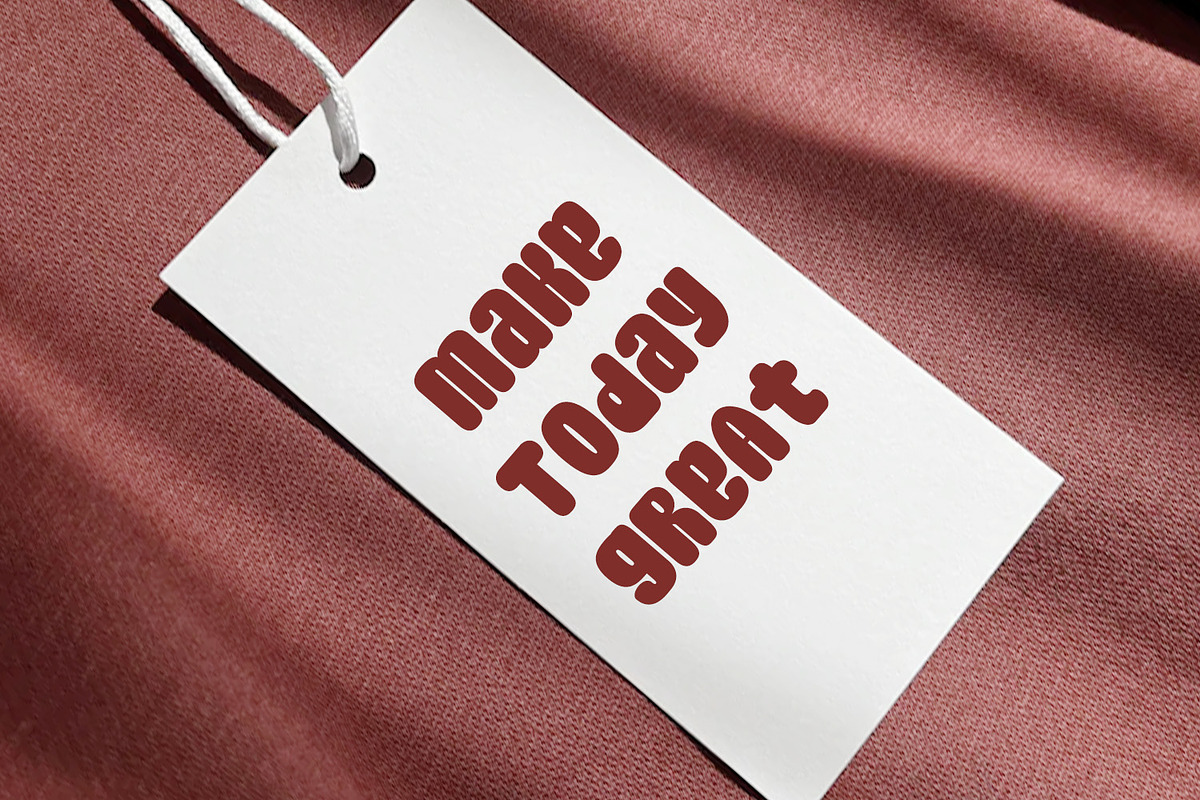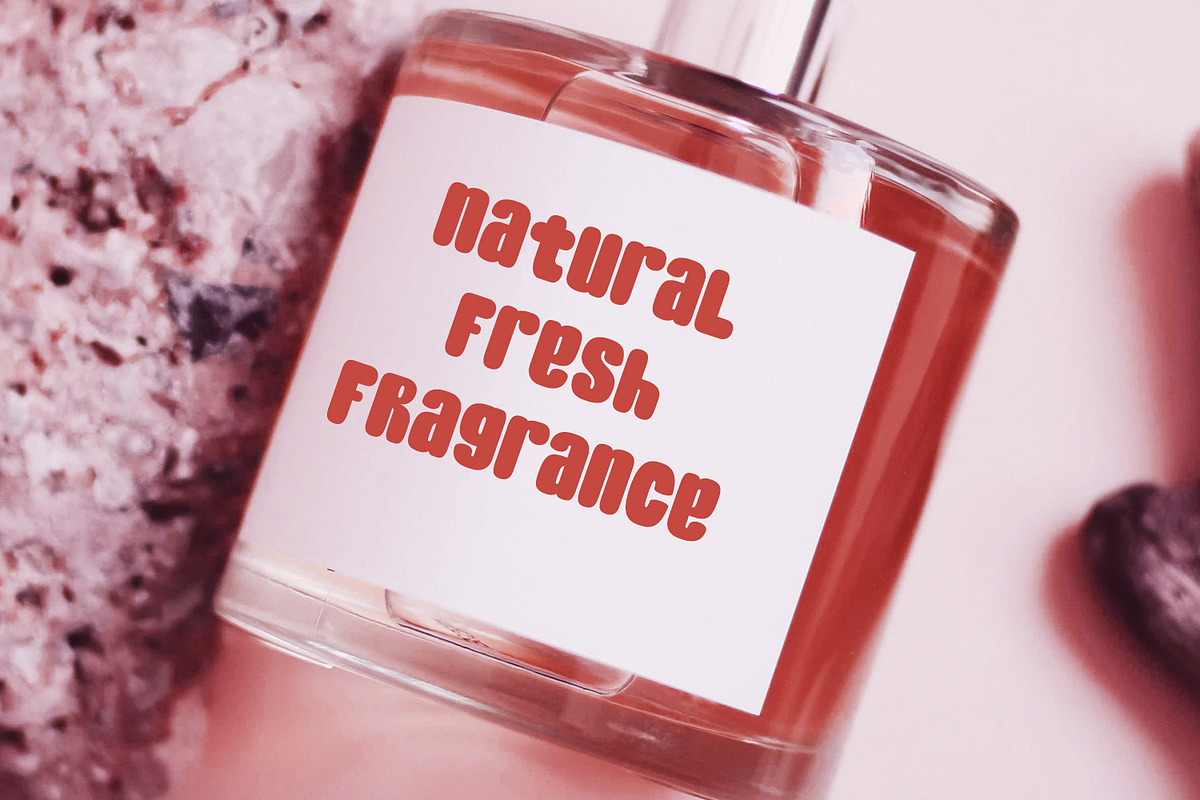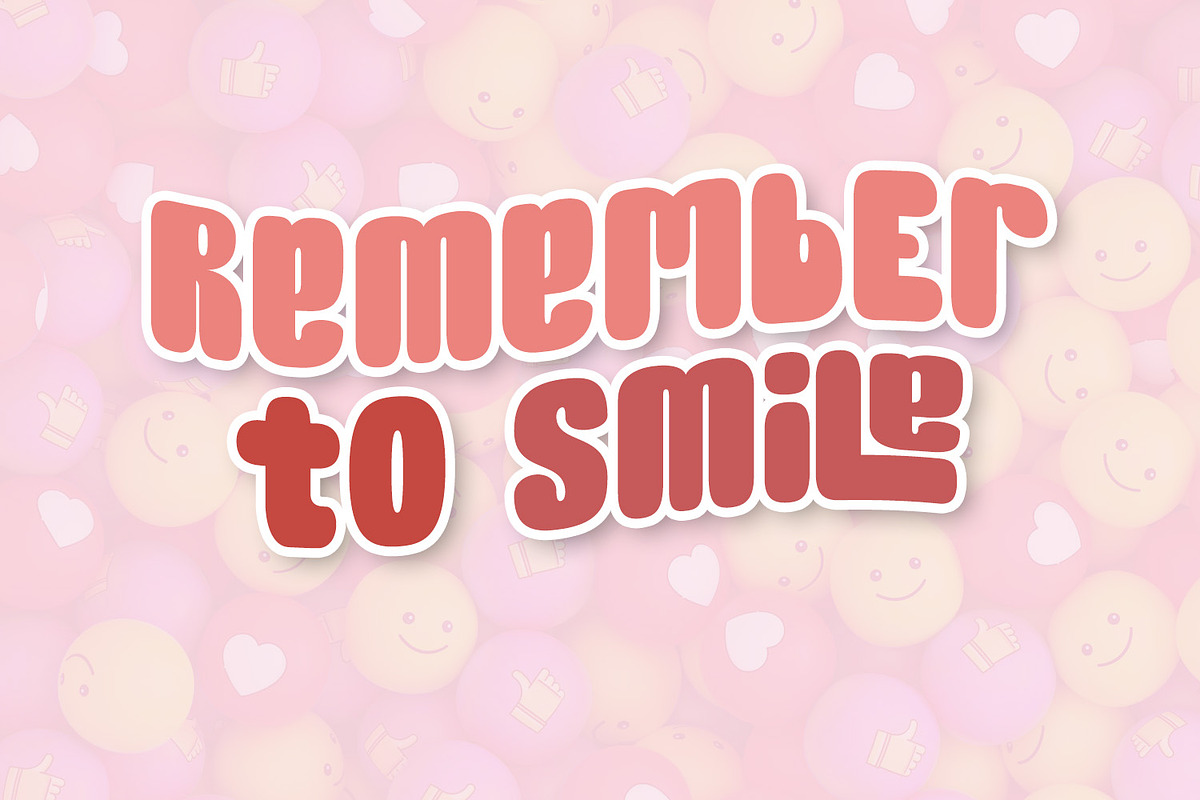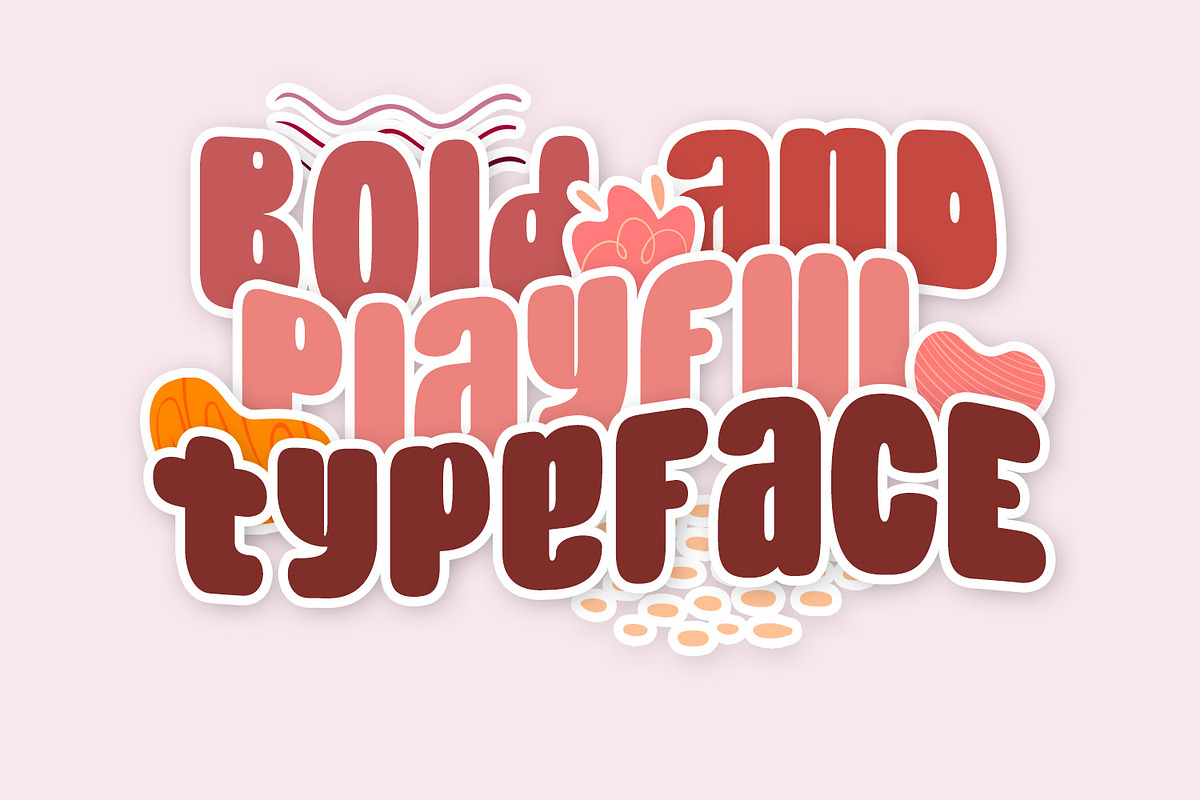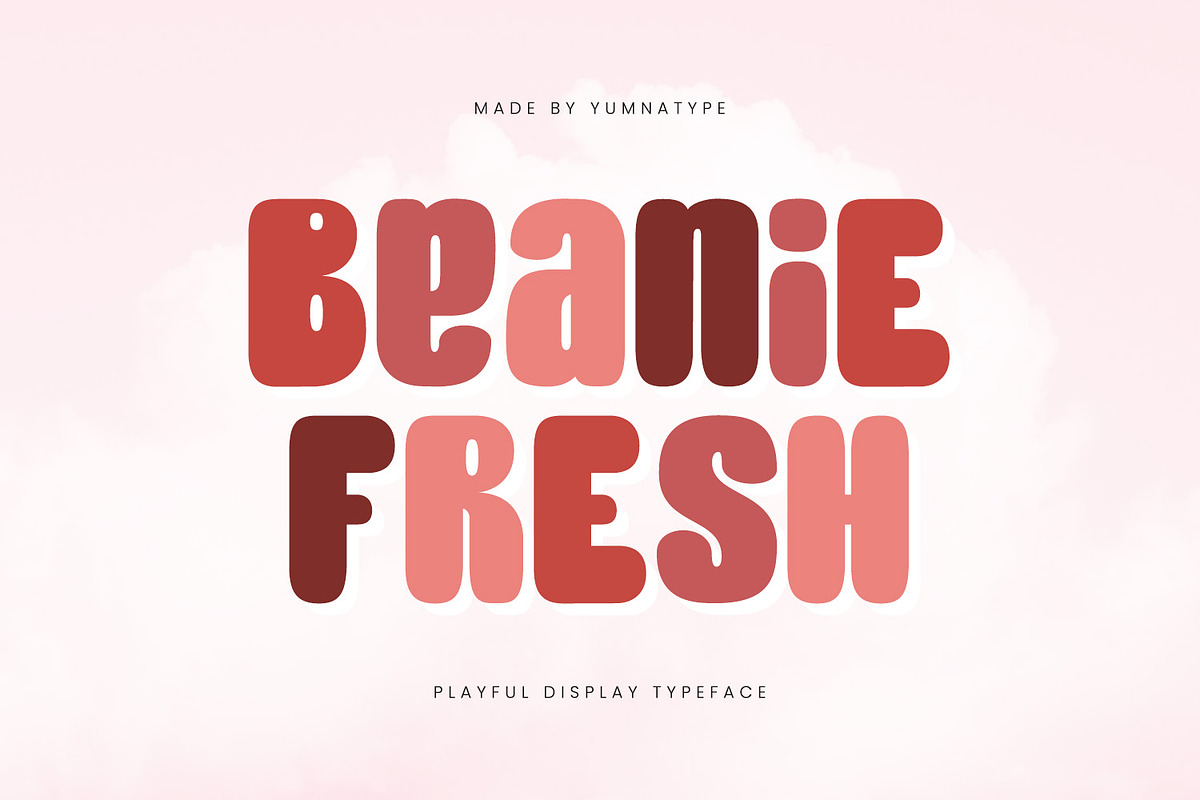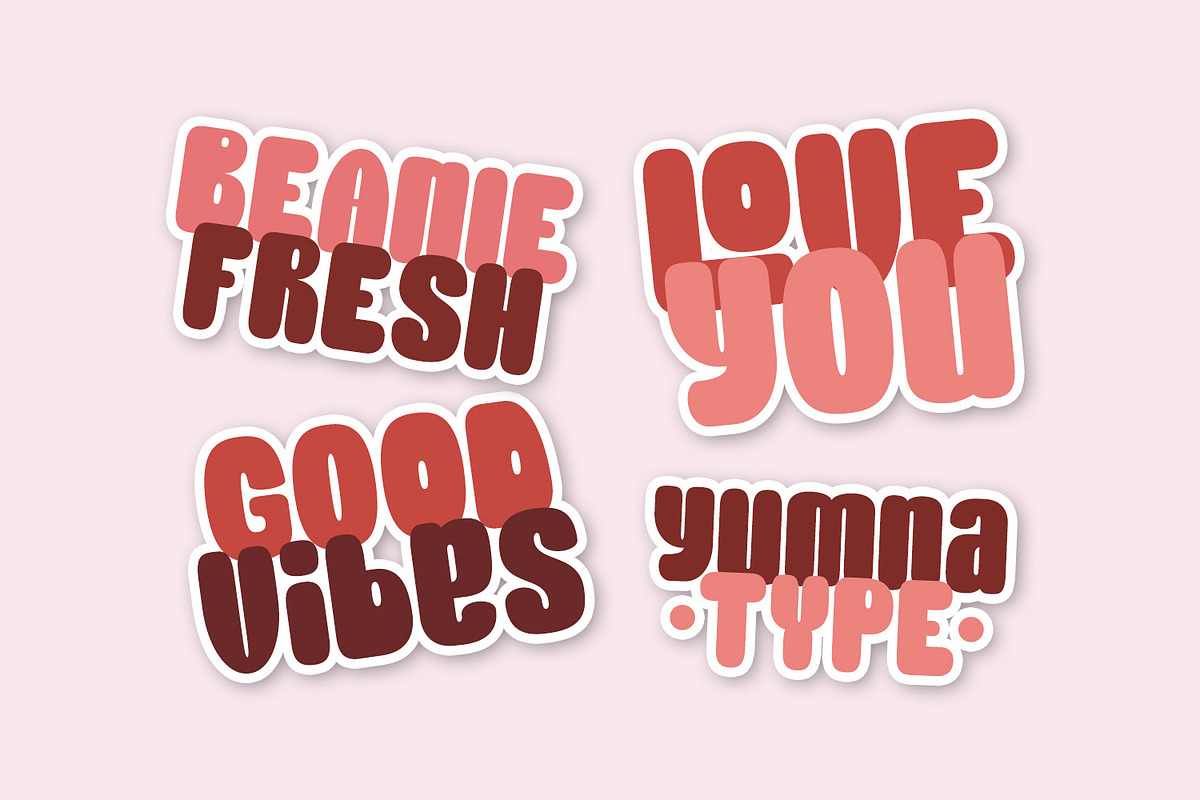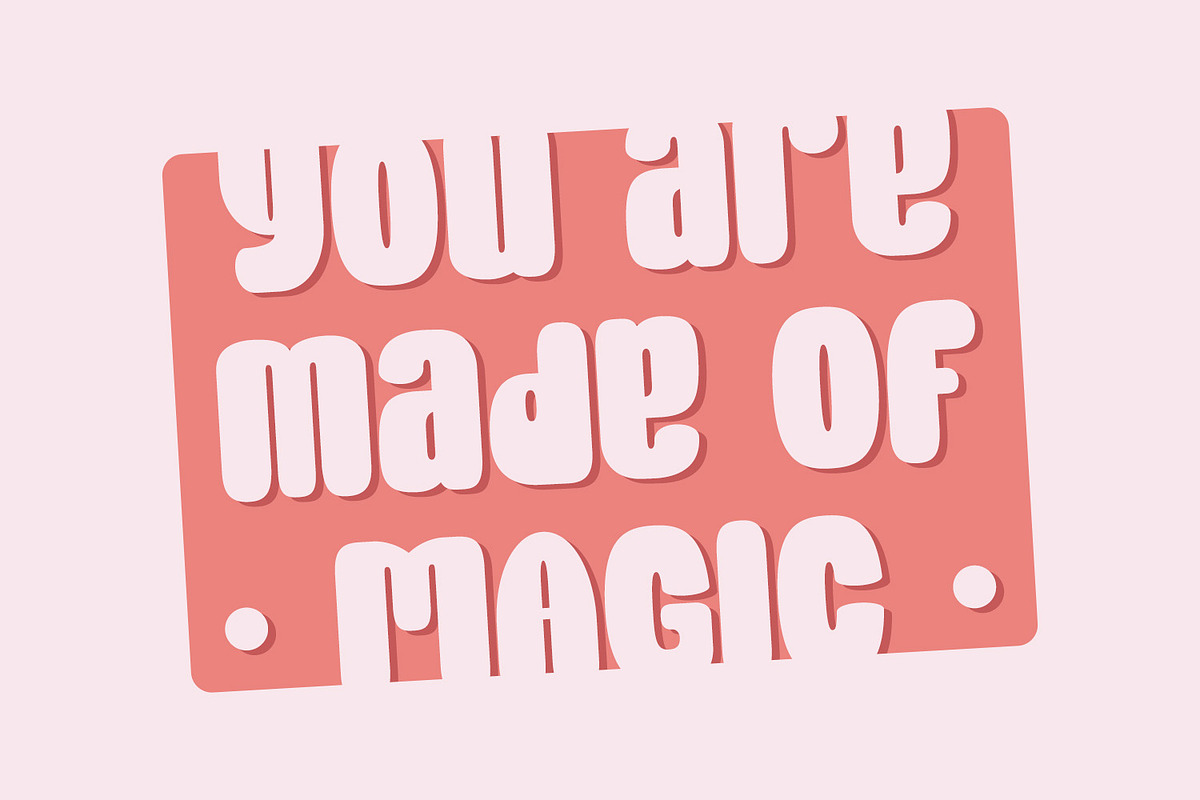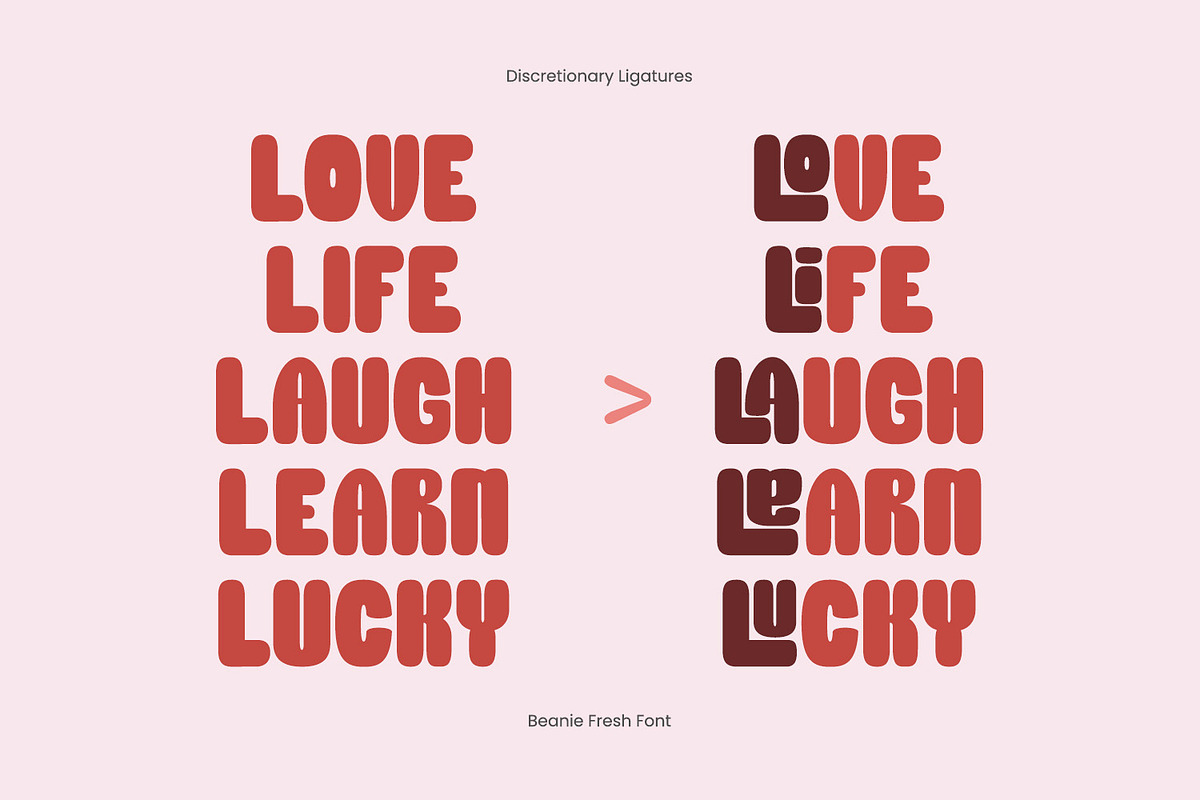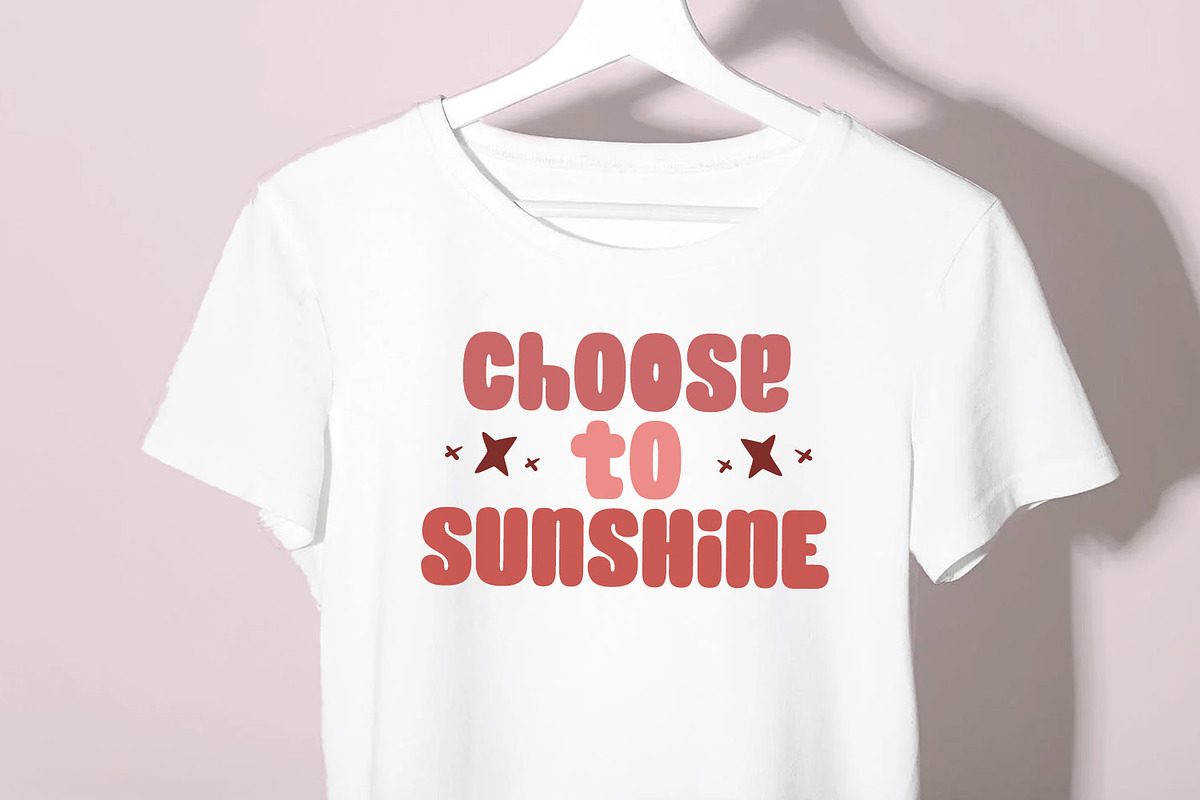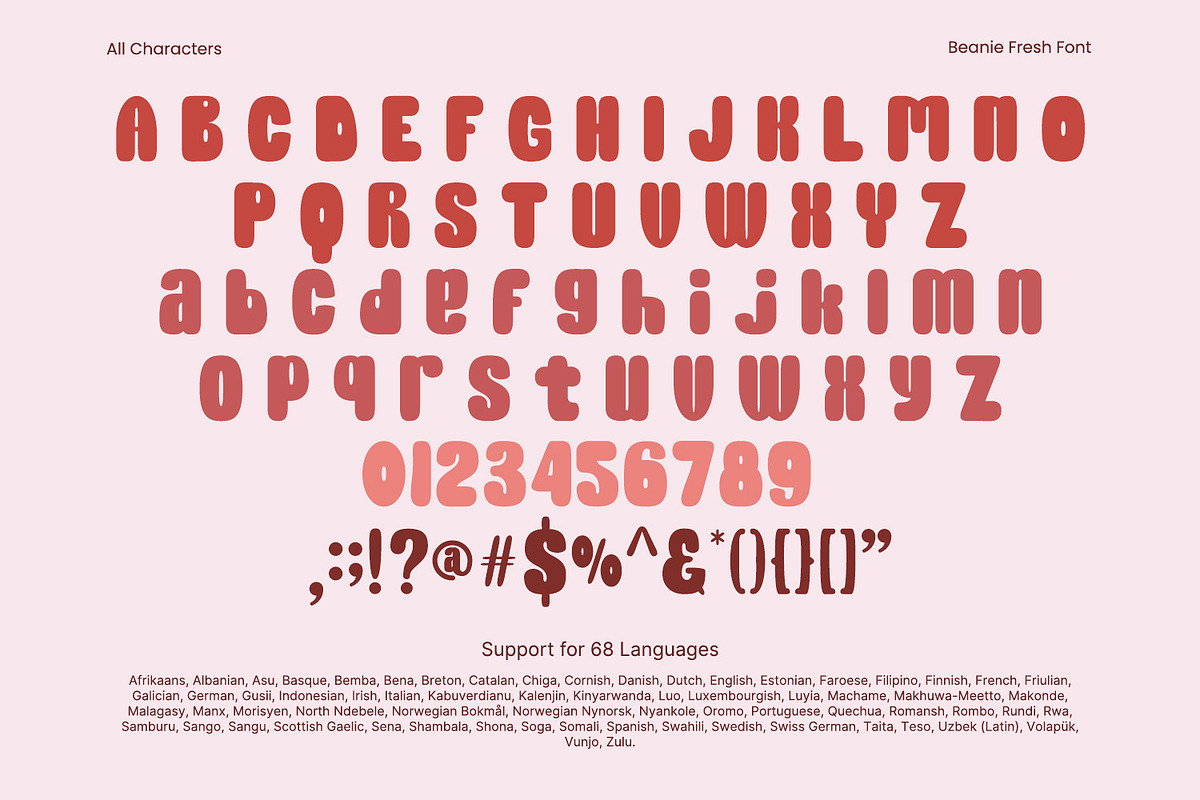
Beanie Fresh
Beanie Fresh is a delightful display font that radiates warmth and charm with its playful style. Each letter in Beanie Fresh is meticulously designed with rounded shapes that add a soft and inviting vibe to your text. The thick weight of the font adds a sense of solidity and presence, while the low contrast creates a gentle and easygoing texture that is easy on the eyes.
What sets Beanie Fresh apart is its consistent letter proportions, which ensure a harmonious composition. Whether used for short headlines or longer passages of text, this font maintains its visual impact and legibility. In addition, enjoy the features here.
Beanie Fresh fits in headlines, logos, posters, flyers, branding materials, print media, editorial layouts, and many more designs. Find out more ways to use this font by taking a look at the font preview.